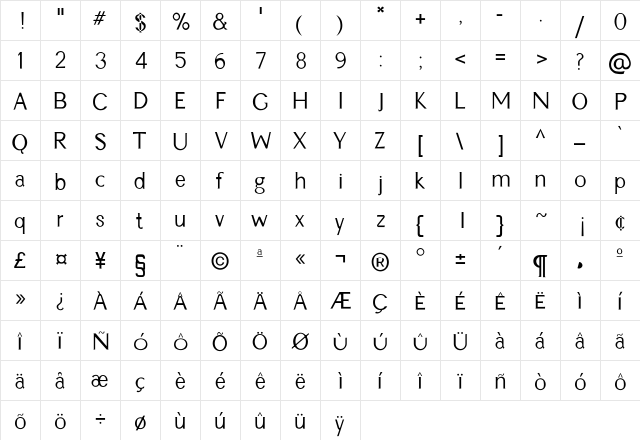
Litalitha Regular
Design Context for Litalitha Typeface
Litalitha offers clean, dependable letterforms without strong stylistic allegiance, making it a practical choice for designers who need flexibility.